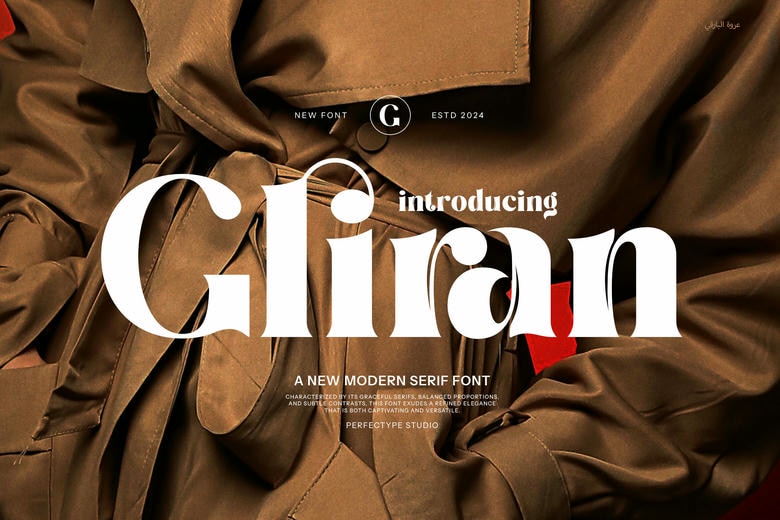
Gliran Font
Gliran Elegant Serif is very elegant and traditional font with soft and tender curves. It adds an elegant touch to any text making it perfect for logos, invitations or headlines in professional designs.
Gliran Serif Font